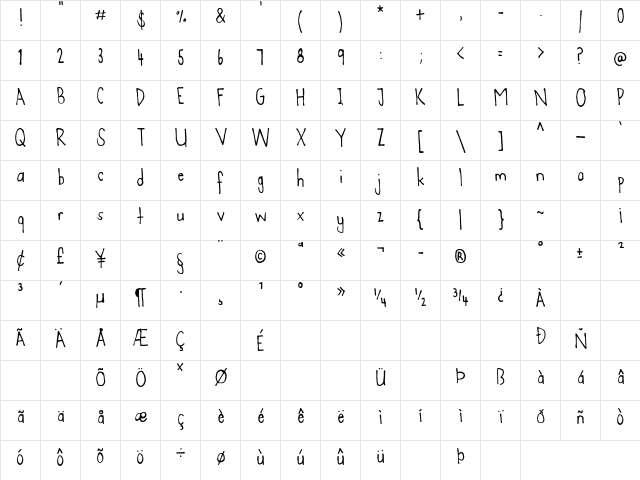
Agent 'C' Regular
Design Context for Agent 'C' Typeface
Agent 'C' is a composed and adaptable typeface that performs quietly and consistently across a wide range of design contexts.